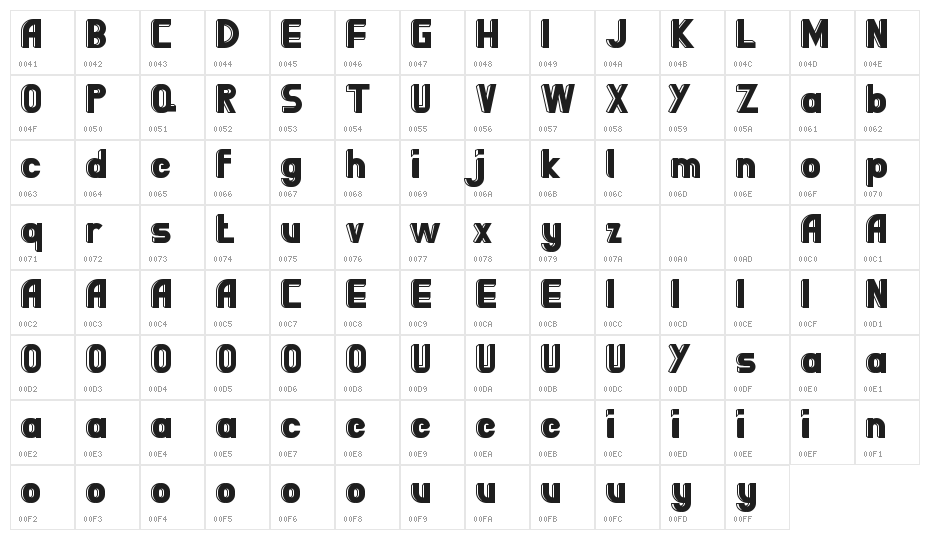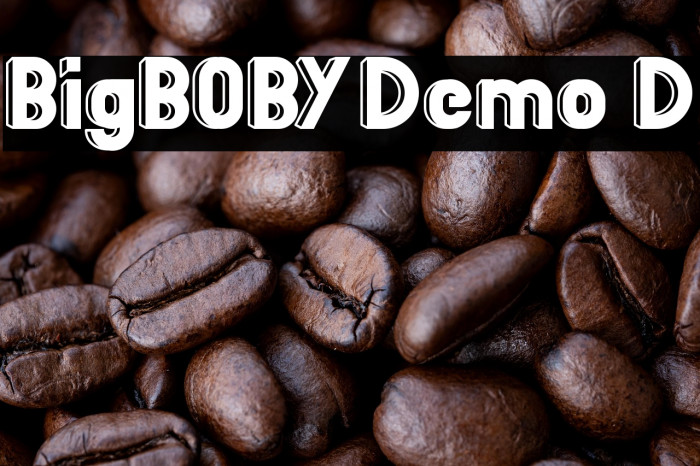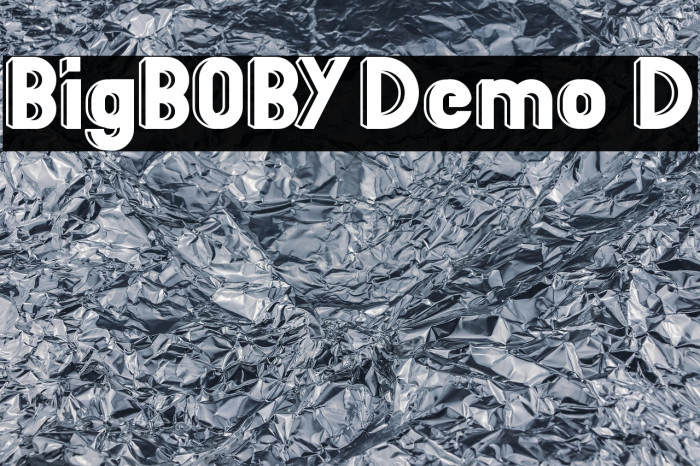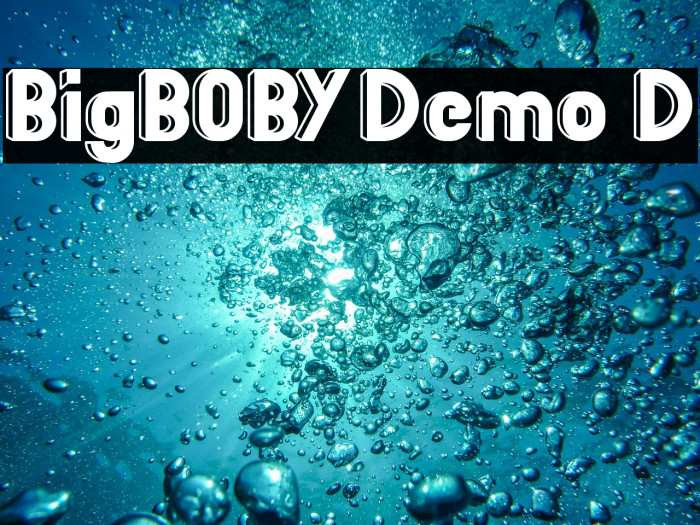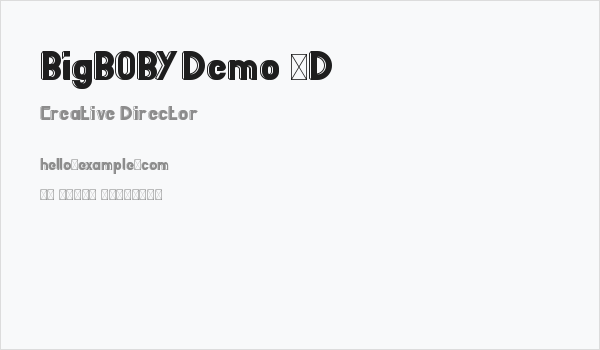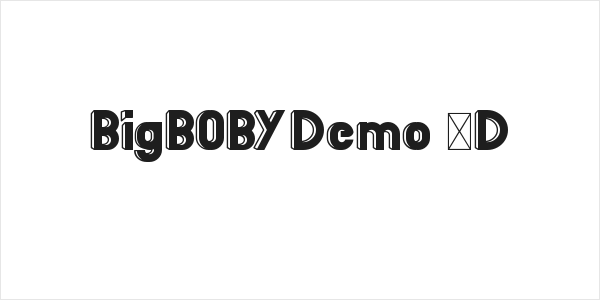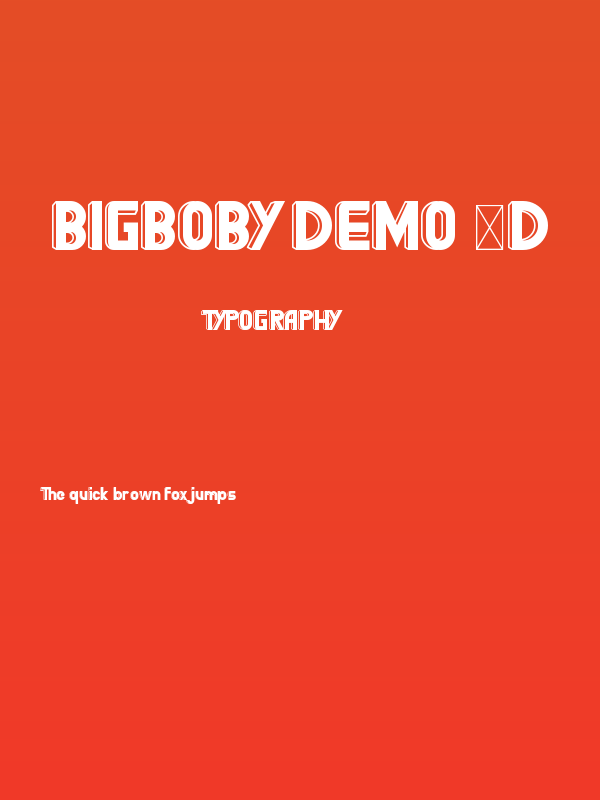
BigBOBY Demo 3D Font
BigBOBY Demo 3D Description
This font features a bold, three-dimensional design that creates a striking visual impact. Each character is crafted with a shadow effect, giving it a sense of depth and dimension. The uppercase and lowercase letters maintain a consistent style, with clean lines and a modern aesthetic. The font's geometric shapes and strong presence make it ideal for attention-grabbing headlines and titles. Its unique 3D effect sets it apart from traditional fonts, making it suitable for creative projects that require a bold statement.
| Proposed Projects | Ideal for posters, logos, headlines, and any design requiring a bold, eye-catching font. |